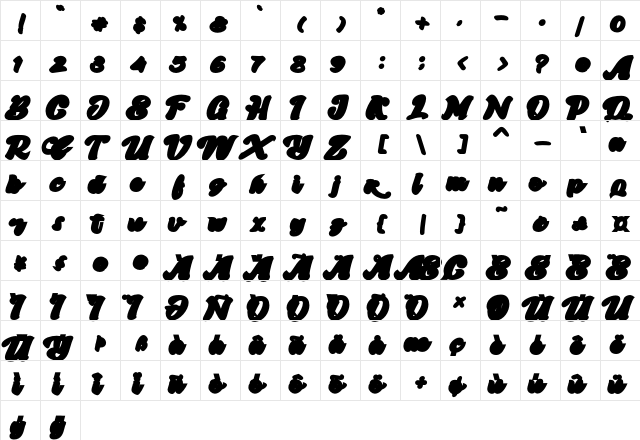
Skatter Base Regular
| Foundry | creativewok studio |
| Designer | Daddi Daryawan |
Design Context for Skatter Base Typeface
Skatter Base is a composed and adaptable typeface that performs quietly and consistently across a wide range of design contexts.